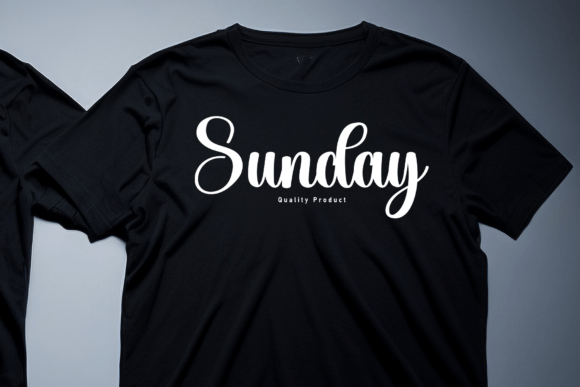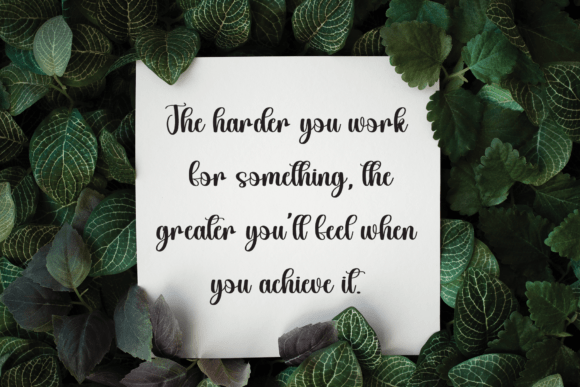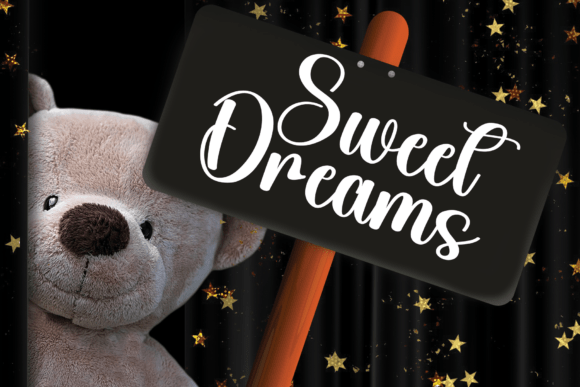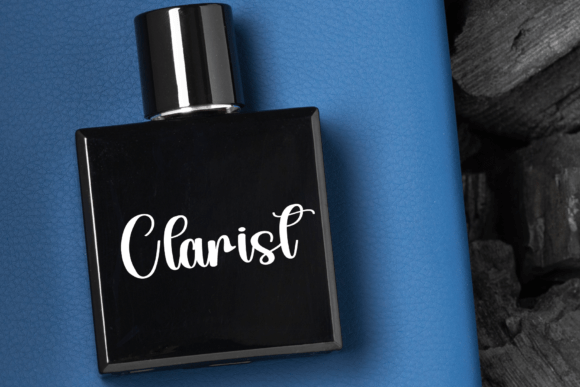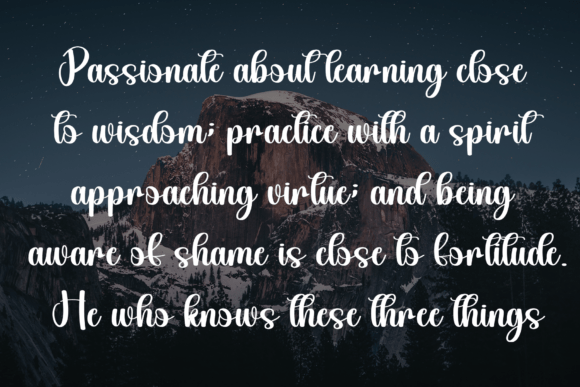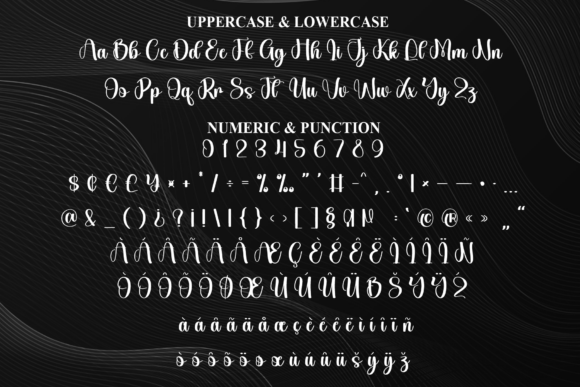
The Art of Handwritten Elegance: Unlocking the Power of Blackline Font
As a designer, there’s nothing quite like the thrill of crafting a custom invitation or logo that perfectly captures the essence of a client’s vision. You spend hours pouring over sketches, experimenting with different fonts, and tweaking every detail until it’s just right. And then, it happens – that moment when everything comes together, and your design is transformed into a beautiful, one-of-a-kind masterpiece.
At the heart of many a successful design project is a stylish and versatile font that can bring warmth, sophistication, and creativity to the table. Enter Blackline Font, a charming handwritten script font that effortlessly blends modern elegance with a playful touch. Its fluid strokes and charming curves make it the perfect choice for logos, packaging, and invitations that demand a personal touch.
Whether you’re a seasoned pro or just starting out, Blackline Font is a valuable addition to any designer’s toolkit. Its adaptability and charm make it an ideal choice for a wide range of projects, from elegant wedding invitations to whimsical branding campaigns. With Blackline Font, the possibilities are endless, and the results are sure to delight.
Blackline Font Key Features
- Unique Character Set: The Blackline font features a unique character set that includes a wide range of glyphs, including international characters, symbols, and ligatures.
- Font Style Variations: The font is available in multiple styles, including Regular, Italic, Bold, and Bold Italic, allowing users to choose the perfect style to suit their needs.
- High-Quality Typography: The Blackline font is designed with high-quality typography in mind, featuring precise letterforms, even spacing, and a clean, modern aesthetic.
Designer Review: Blackline Font
First off, I have to say that the Blackline font is quite the catch. ✨ The clean and modern design of the font makes it a great choice for any project that requires a professional and sleek look. The font’s high x-height and optimized letter spacing give it a polished and refined feel that’s sure to impress.
Another great feature of the Blackline font is its versatility. ✨ It works well in a variety of contexts, from body text to headings, and even in digital applications like mobile apps and websites. The font’s high legibility and clear typography make it easy to read, even at small sizes.
While the Blackline font is a great choice for many projects, there are a few limitations to consider. ⚠️ One of the main issues is that the font can feel a bit sterile and lacking in personality, which may not be suitable for projects that require a more creative or emotive tone. Additionally, the font may not be as effective in low-resolution or pixelated environments, which can make it appear blurry or fuzzy.
Overall, I think the Blackline font is a solid choice for designers looking for a clean and modern font. While it may have some limitations, its versatility and high legibility make it a great option for a wide range of projects.
- High x-height and optimized letter spacing for a polished and refined feel
- High legibility and clear typography for easy reading
- Works well in a variety of contexts, from body text to headings
- Versatile and suitable for digital applications like mobile apps and websites
- May not be suitable for projects that require a more creative or emotive tone
- May not perform well in low-resolution or pixelated environments